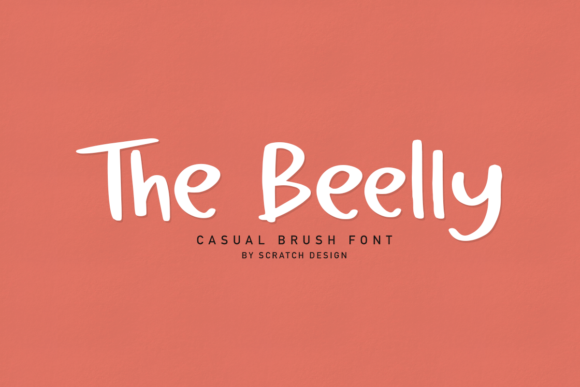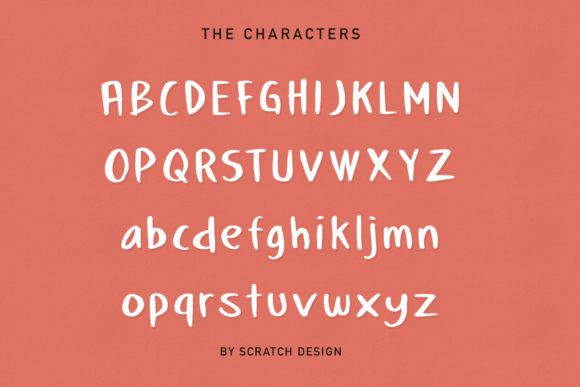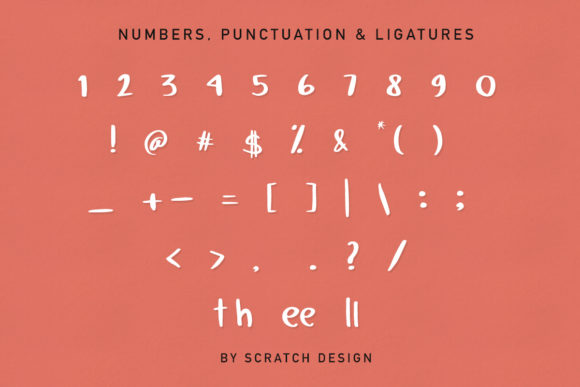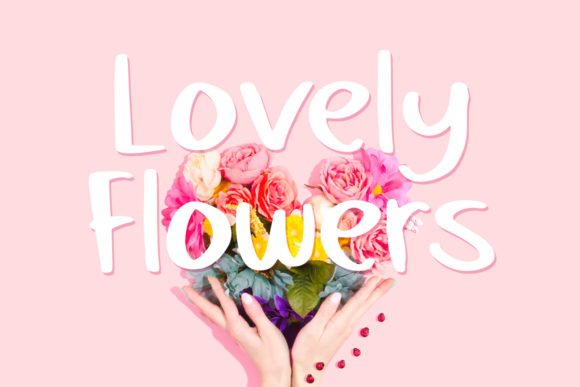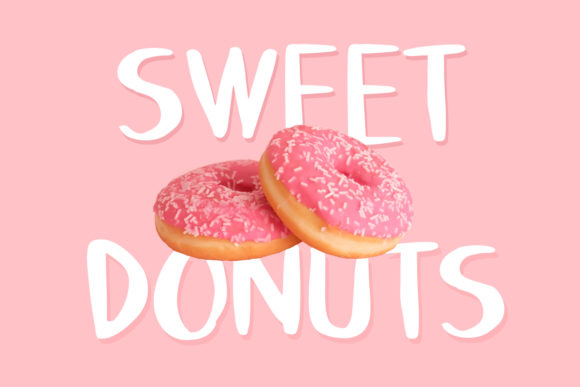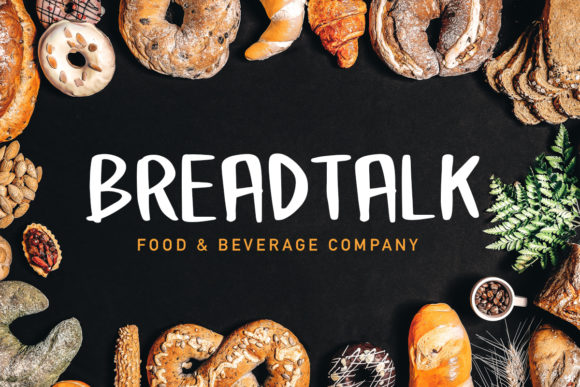
The Beelly Font
About The Beelly Font
The Beely is a simple but classy handwritten font that is perfect for a big variety of design projects. Get inspired by its chunky feel.